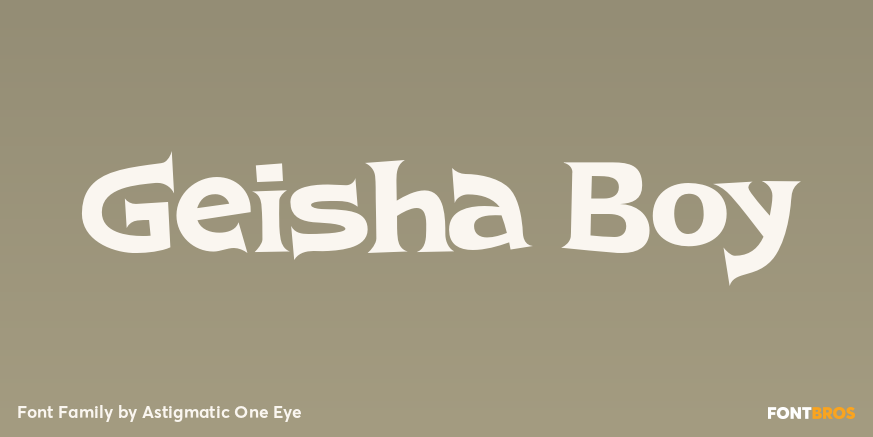
HomeFunWackyGeisha Boy Wacky Geisha Boy FacebookTwitterPinterestWhatsApp 1 of 1 About Geisha Boy A bouncing offbeat latin poster font.  DOWNLOAD NOW People also explored Manttulda Philliph Font Brilliant Morpheus Font Triggers Font Nero Font Shooby Doowap Shebop Font Brendesta Font Ravenstonedale Blue Liquid Font 97 0 TagsGeisha Boy Font Previous articleGiraffeNext articleNavarone LEAVE A REPLY Cancel reply Comment: Please enter your comment! Name:* Please enter your name here Email:* You have entered an incorrect email address! Please enter your email address here Website: Save my name, email, and website in this browser for the next time I comment. Personal Use Free Rosebirth Personal Use Free Read more about this font Makeba Font Personal Use Free Read more about this font BD Fluke Personal Use Free Read more about this font Jellia Personal Use Free Read more about this font BLOG Exploring Font Trends Shaping Communication in the Digital Era Fonts, like all design elements, are subject to trends. They play a crucial role in communicating a brand's personality,... Using Fonts in Digital Marketing: Tips to Strengthen Your Brand Identity Free vs Paid Fonts: Why Investing in Premium Fonts Is Worth It To increase your work productivity, choose the most readable fonts.